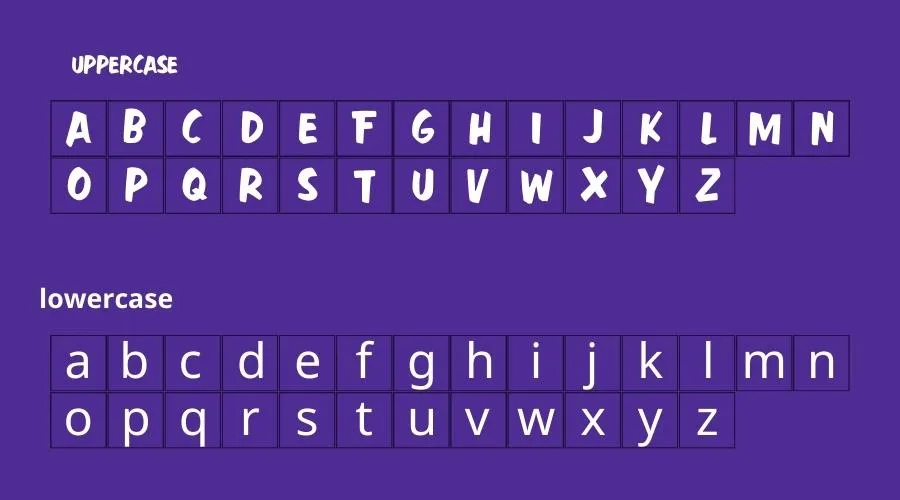
Fast Action Font
About Fast Action Font
Kristian Larsen designed Fast Action Font it is fancy comic text style. Letters in this font are rounded and curled, which is one of its characteristics. It was advised to group all the characters with each other in order to give the display a distinctive flavor.
To make it seem decent, all of its characters must be combined. The typeface is a fantastic option if you're seeking for a natural font with a distinctive charm. This typeface has elegant, uncommon characters that have an aged look.